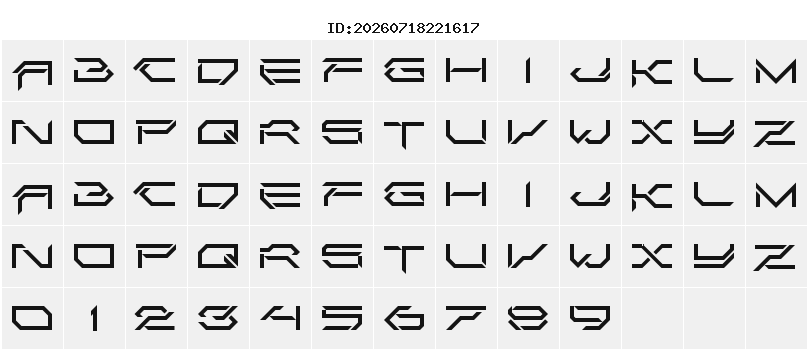
Corruptor Clean LDR Preview
• Font Name: Corruptor Clean LDR
• Full Font Name: Corruptor Clean LDR Regular
• Designer: Michał “Neoqueto” Nowak
About Corruptor Clean LDR.ttf
Corruptor Clean LDR.ttf is a modern, elegant sans-serif font designed for ultimate readability and visual harmony. Perfect for branding, headlines, web design, and print materials.